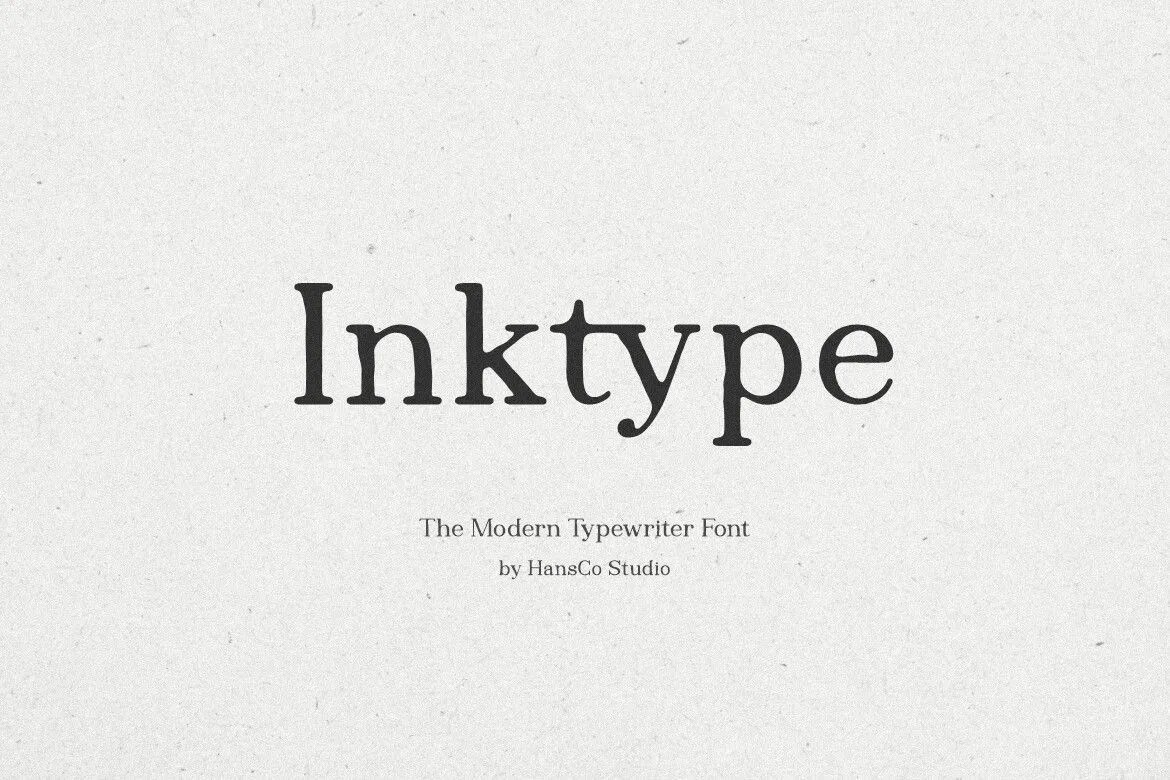
Inktype Font
In a world where individuality and creativity reign supreme, Inktype Font emerges as a charming blend of modernity and vintage allure. Crafted with a whimsical touch and a nod to retro aesthetics, this hand-drawn serif font adds a playful yet sophisticated vibe to any design project.
Whether you’re curating content for your Instagram feed or embarking on a DIY endeavor, Inktype Font serves as the perfect companion to transform your creative ideas into works of art. Its unique charm and versatility make it a valuable asset for a wide range of applications, from print templates to digital designs.
When it comes to print projects, Inktype Font truly shines. From eye-catching posters to distinctive branding elements, this font lends a touch of personality and flair to every piece it graces. Whether you’re designing quotes, blog titles, fashion spreads, invitations, or greeting cards, Inktype Font infuses each word with a sense of charm and character.
But the versatility of Inktype Font extends far beyond the realm of print. With its full support for uppercase and lowercase letters, numbers, and punctuation, this font seamlessly adapts to any project, regardless of its scope or scale. Whether you’re creating clothing designs, stationery, or digital graphics, Inktype Font provides the perfect blend of style and functionality.
Beyond its aesthetic appeal, Inktype Font offers practical benefits as well. With its comprehensive language support, including support for various diacritics and special characters, this font ensures that your message is conveyed accurately and effectively, no matter the language or audience.